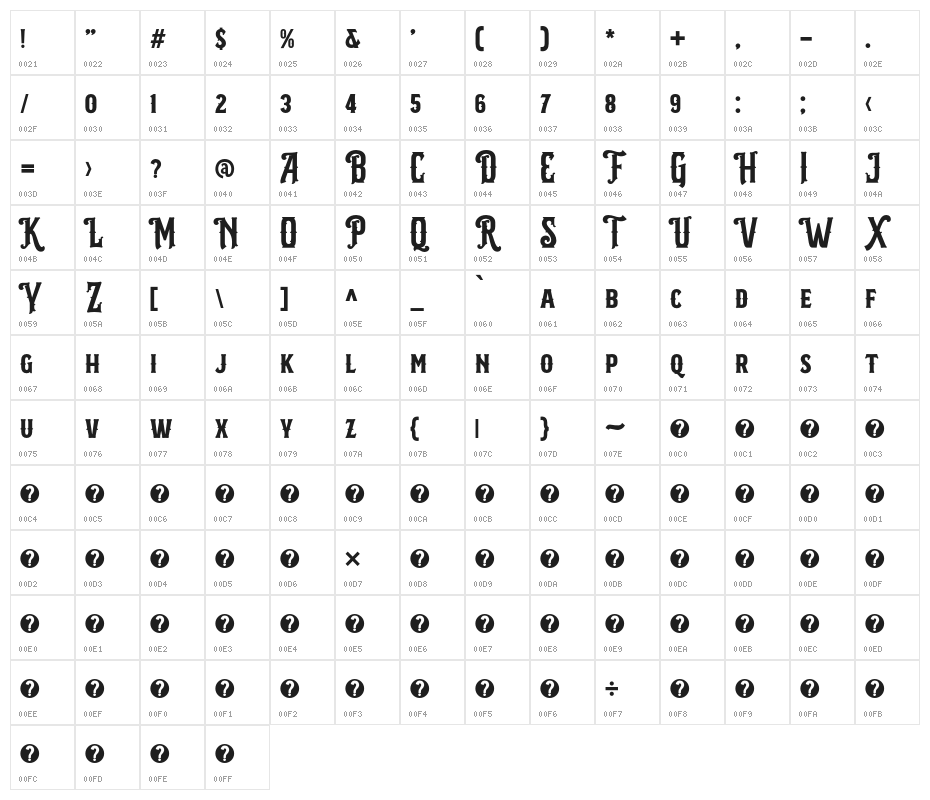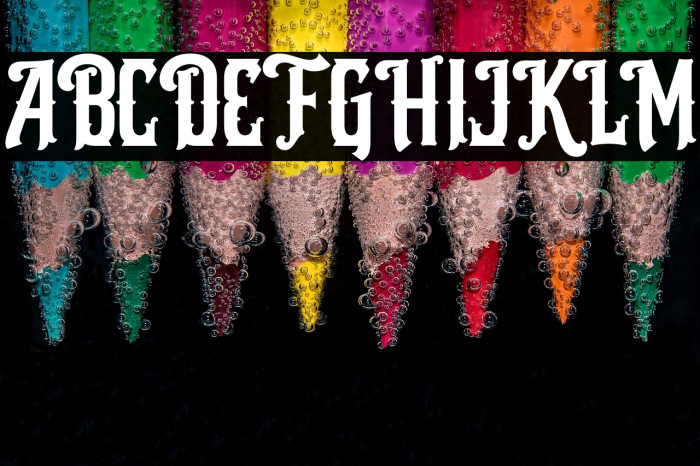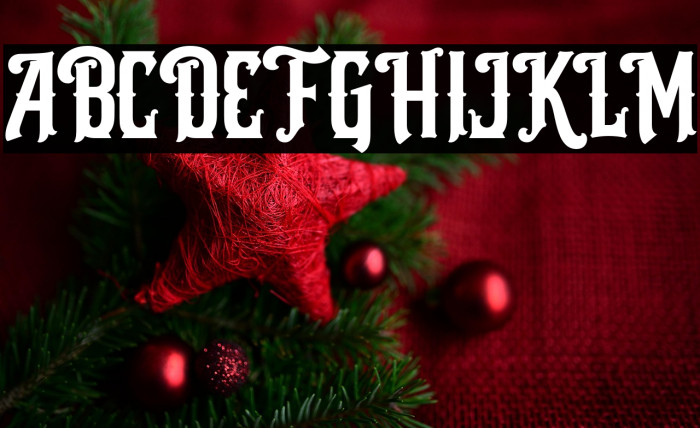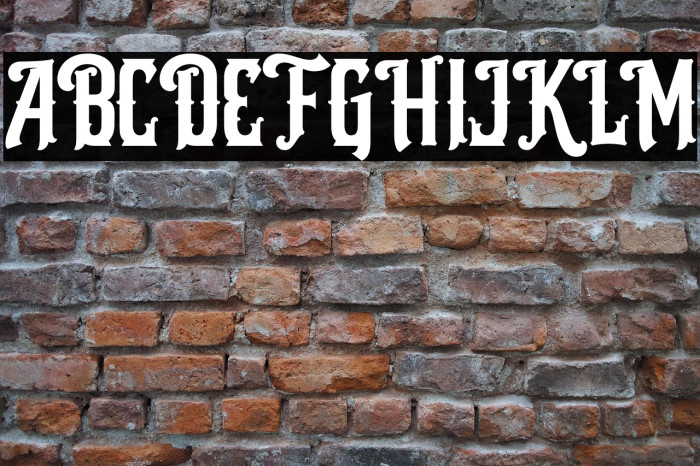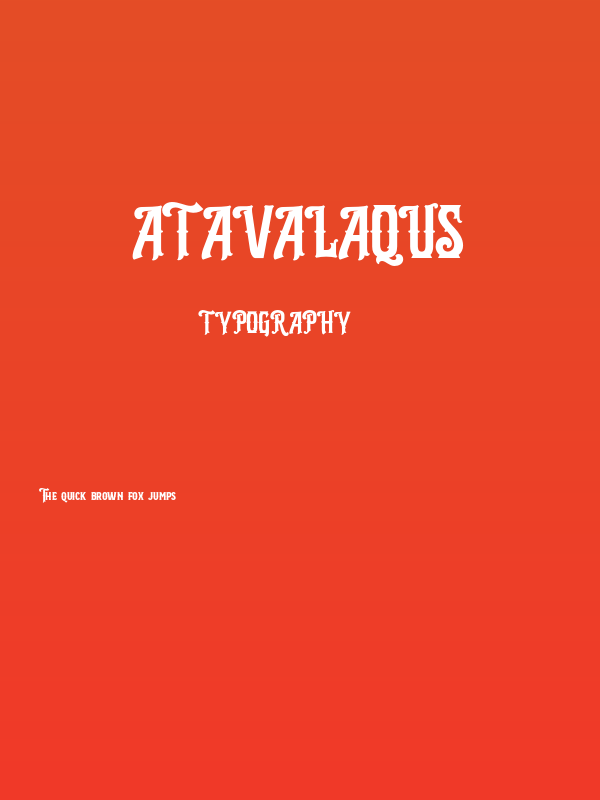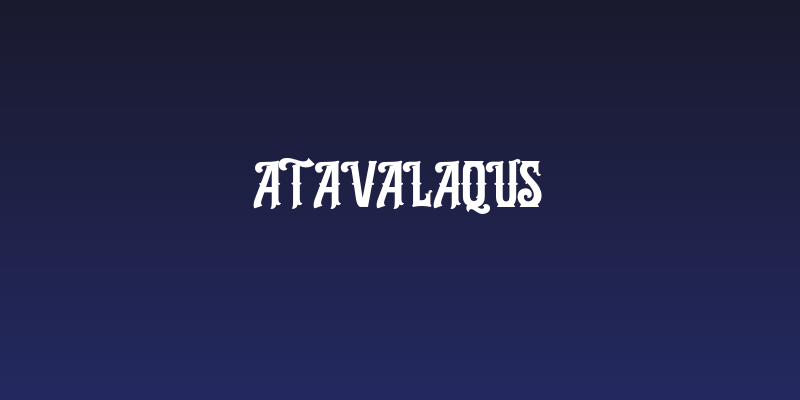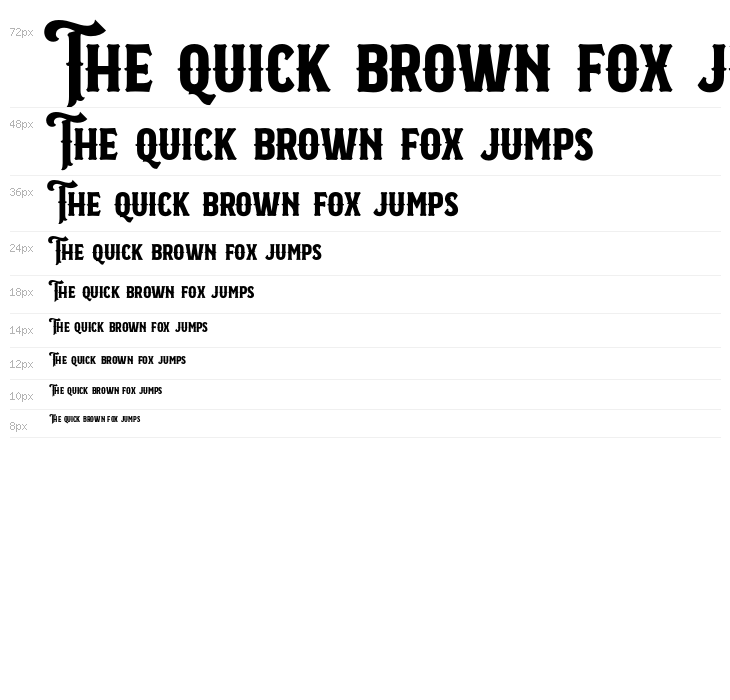
ATAvalaqus Font
ATAvalaqus Description
This font features a bold and decorative style with a strong presence. The uppercase letters are characterized by intricate serifs and unique embellishments that give it a vintage and ornate appearance. The numbers and special characters maintain this decorative theme, ensuring consistency across all glyphs. The font's boldness and distinct style make it suitable for projects that require a strong visual impact. Its elaborate design elements suggest a historical or classical influence, making it ideal for themed designs or branding that seeks to convey tradition and elegance.
| Proposed Projects | Ideal for branding, posters, book covers, and themed event invitations. |